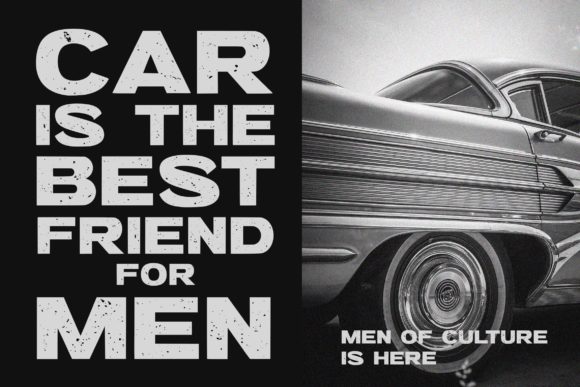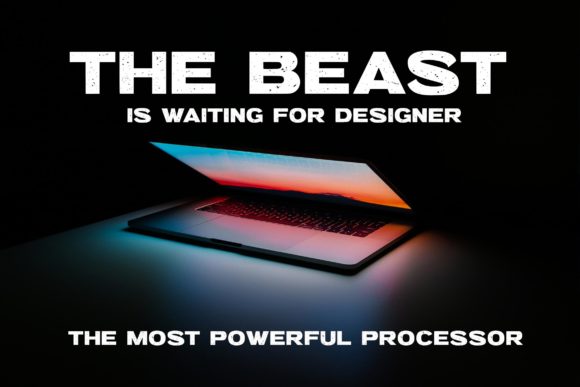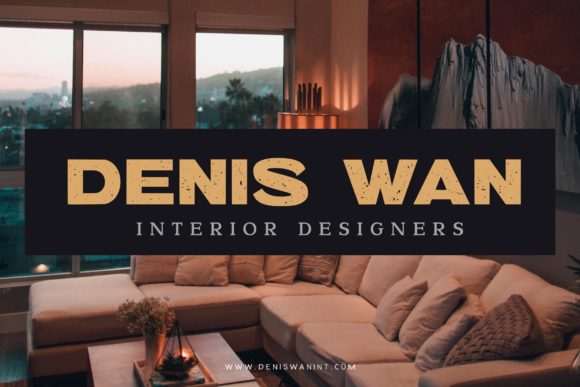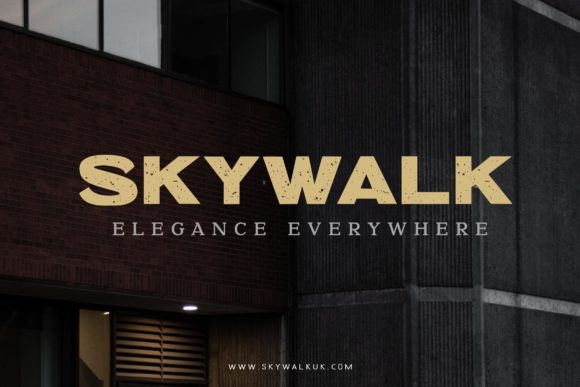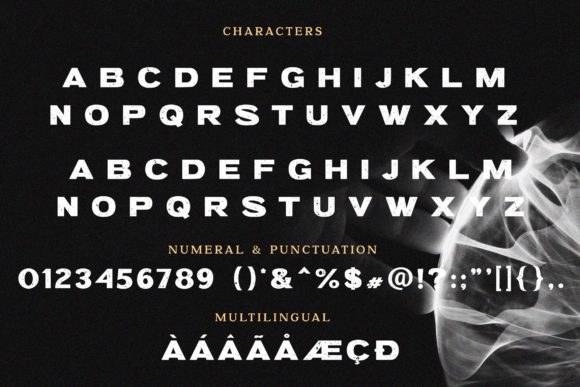
Give Your Designs a Bold Boost with the Blasto Distort Font
Have you ever stared at a blank canvas, wondering how to bring your creative vision to life? We’ve all been there – the blank page staring back, begging for inspiration. But what if I told you that the key to unlocking your full creative potential lies in a single, game-changing font? Say hello to the Blasto Distort Font, a bold and rough textured display font that’s ready to shake up your design game.
This versatile font is more than just a pretty face – it’s a powerful tool that can elevate your designs and make them stand out in a crowded market. Whether you’re working on a branding project, a marketing campaign, or a graphic novel, the Blasto Distort Font is the perfect addition to your toolkit. Its unique texture and bold lines will add a level of depth and visual interest to your designs, making them truly unforgettable.
Blasto Distort Font Key Features
- Unique Distortion Effect: Blasto Distort Font features a unique, hand-drawn distortion effect, giving it a dynamic and eye-catching appearance that sets it apart from other fonts.
- Highly Customizable: The font offers advanced typographic features, including ligatures, swashes, and alternate characters, allowing designers to customize their text to suit their specific needs.
- Professional and Creative Applications: The font is suitable for a wide range of applications, including logos, branding, advertising, and editorial content, making it a versatile choice for designers and creatives.
Blasto Distort Font Review
I recently had the chance to work with the Blasto Distort Font, and I must say it’s a unique addition to any design project. ✨ The font’s quirky, hand-drawn feel is perfect for creating eye-catching headings and titles. The varying line widths and distortion effects add a level of personality that’s hard to find in more traditional fonts.
One of the things that really stood out to me was the font’s versatility. ✨ It works well for a wide range of projects, from digital signage to print materials. The font’s bold, attention-grabbing style makes it perfect for promotional materials, while its more subtle variations can be used for branding and identity design.
Limits and Considerations
While the Blasto Distort Font is certainly unique and effective, there are a few limitations to consider: ⚠️ The font can be difficult to read at small sizes, and the distortion effects can make it hard to scan large blocks of text. Additionally, the font’s quirky style may not be to every designer’s taste.
- May be difficult to read at small sizes
- Distortion effects can make text hard to scan
- May not appeal to designers with more traditional tastes
Overall, I’m a fan of the Blasto Distort Font. ✨ It’s a bold, eye-catching choice that can add a level of personality to even the most mundane design projects. While it may have some limitations, I think it’s definitely worth considering for designers looking to add a little extra flair to their work.